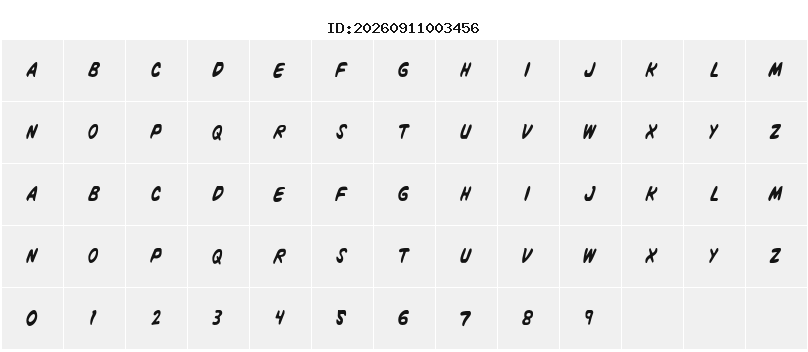
Vigilante Notes Condensed Preview
• Font Name: Vigilante Notes Condensed
• Font Style: Condensed
• Font ID: Vigilante Notes
• Full Font Name: Vigilante Notes Condensed
• PostScript Name: VigilanteNotesCondensed
About Vigilante Notes Condensed.ttf
Vigilante Notes Condensed.ttf is a modern, elegant sans-serif font designed for ultimate readability and visual harmony. Perfect for branding, headlines, web design, and print materials.